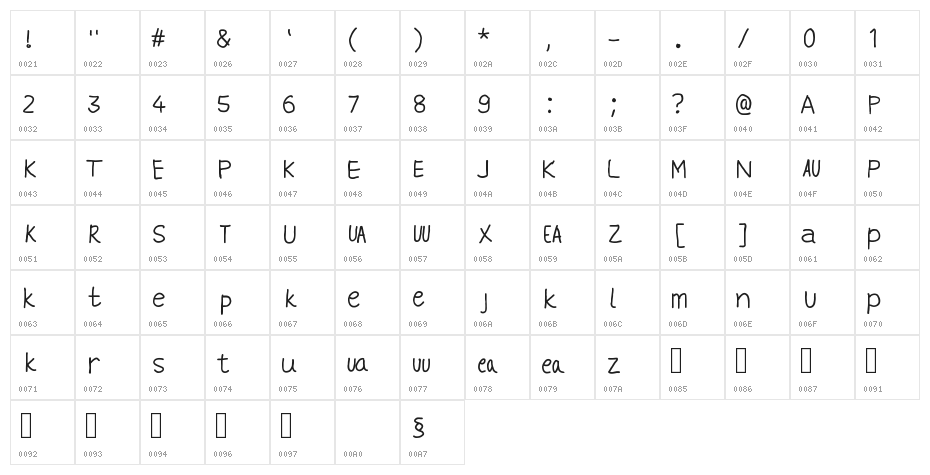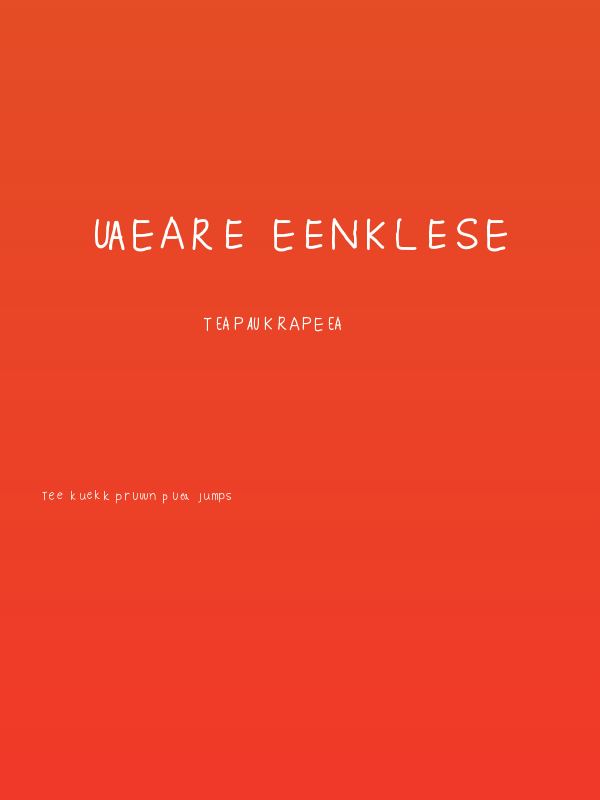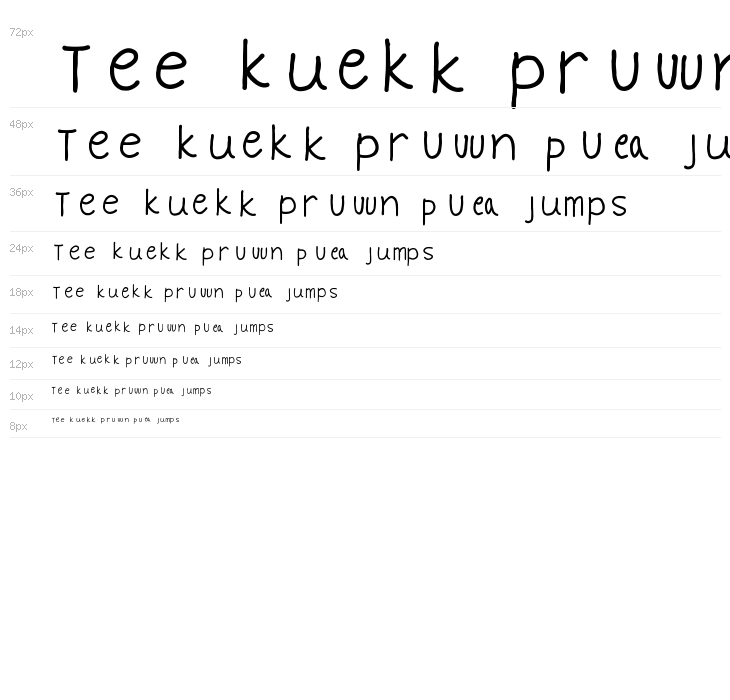
VHARI HINGLISH Font
VHARI HINGLISH Description
This font features a playful and casual handwritten style, characterized by its irregular strokes and slightly uneven baseline. The letters have a whimsical, organic feel, with rounded edges and a natural flow that mimics the spontaneity of handwriting. The uppercase and lowercase letters maintain a consistent style, with a slight slant that adds to the informal aesthetic. Numbers and special characters are designed with the same playful touch, ensuring a cohesive look across all glyphs. This font exudes a friendly and approachable vibe, making it ideal for projects that require a personal touch.
| Use Case | Headlines, Informal text, Personal projects |
| Proposed Projects | Ideal for greeting cards, children's books, personal blogs, and informal branding projects. |